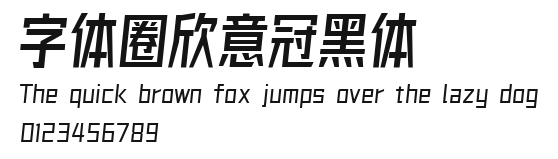
字体圈欣意冠黑体 Preview
• Font Name: 字体圈欣意冠黑体
• Full Font Name: FontquanXinYiGuanHeiTi Regular
• Designer: 微信公众号:字体圈
• Manufacturer: 左字字库Zojitype
About 字体圈欣意冠黑体.ttf
字体圈欣意冠黑体.ttf is a modern, elegant sans-serif font designed for ultimate readability and visual harmony. Perfect for branding, headlines, web design, and print materials.